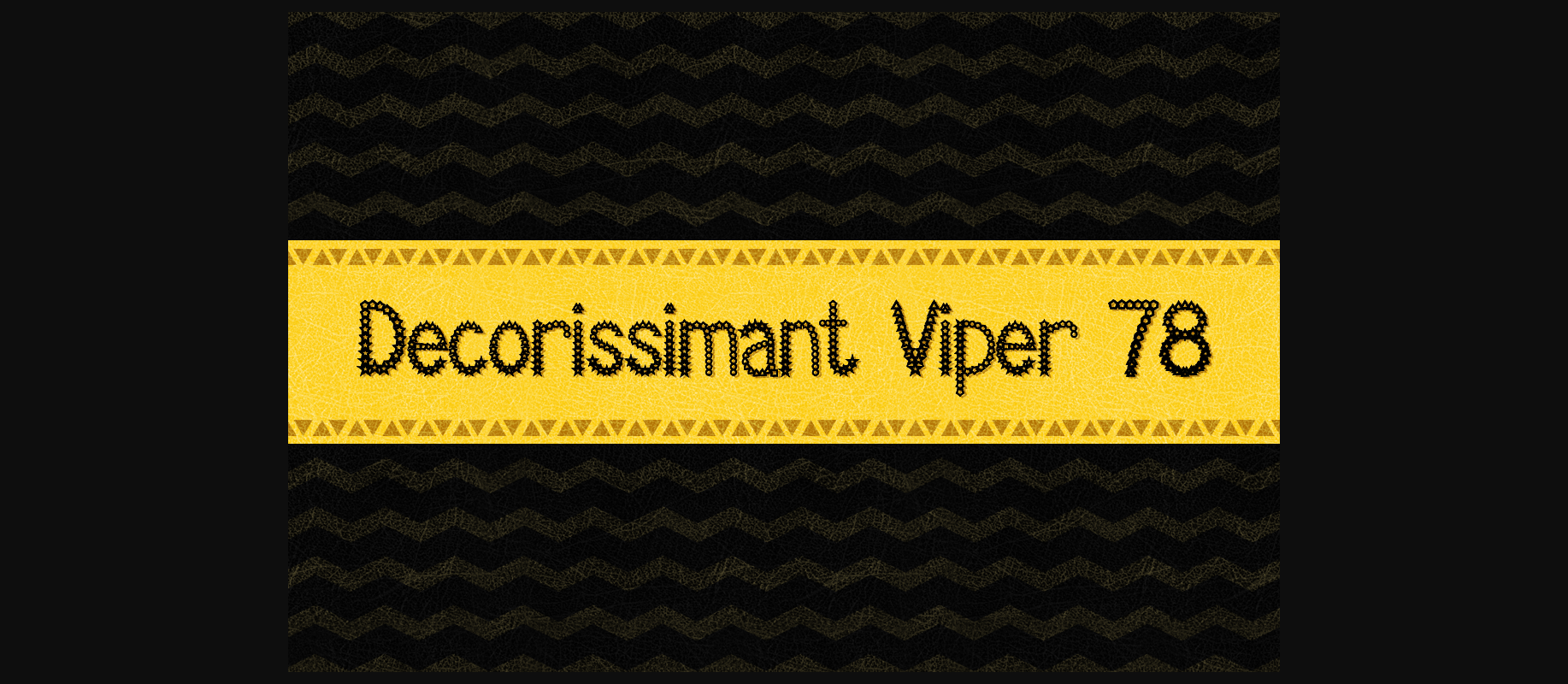
HomeDecorative FontsDecorissimant Viper 78 Font Decorative Fonts Decorissimant Viper 78 Font FacebookXPinterestWhatsApp 1 of 1 About Decorissimant Viper 78 Font Decorissimant Viper 78 is a fun decorative font that looks great in print and digital applications. DOWNLOAD ON CREATIVE FABRICAThis font is sold and delivered by Creative Fabrica. Font Canyon may earn a commission if you buy through this link. People also explored Mactha Font Brushee Font Glossy Font Unicorn Font Virgelina Font Athalita Font Fall Leaves Font Jeniver Font Auburn 289 0 TagsDecorissimant Viper 78 Font Previous articleTetraclericton FontNext articleBambuchinnox Font LEAVE A REPLY Cancel reply Comment: Please enter your comment! Name:* Please enter your name here Email:* You have entered an incorrect email address! Please enter your email address here Website: Save my name, email, and website in this browser for the next time I comment. Personal Use Free Frozdotre Personal Use Free Read more about this font Proudly Personal Use Free Read more about this font Comic Caps Personal Use Free Read more about this font Breather Personal Use Free Read more about this font BLOG Fonts That Capture the Spirit of New York City New York City is more than just a place—it’s an experience, a rhythm, a visual language... Free vs Paid Fonts: Why Investing in Premium Fonts Is Worth It The 10 Best Handwriting Fonts to Add Personality to Your Designs How to Cut Any Font on Cricut: Convert a Font to SVG (Free)